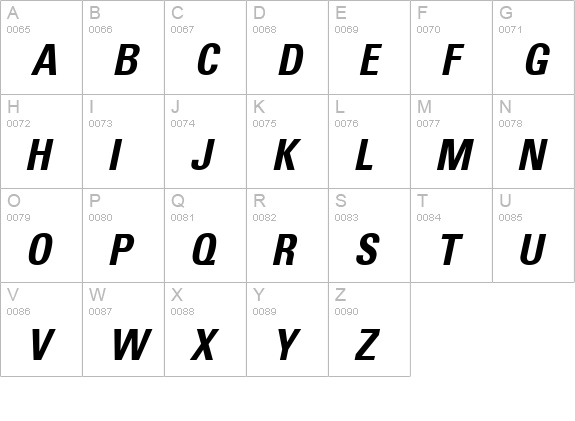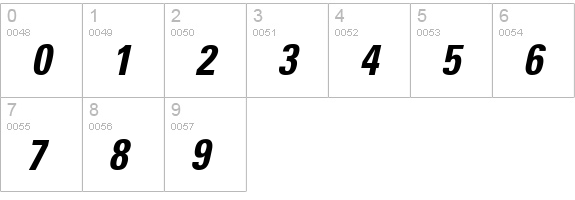
Uniform Bold Italic is a strong, high-contrast, italic variant in the Uniform typeface family \xE2\x80\x94 well suited to headlines, attention-grabbing titles, and strong calls-to-action.
Uniform Bold Italic is a striking and impactful font that demands attention with its bold and italicized design. This font exudes confidence and power, making it the perfect choice for projects that require a strong and dynamic visual presence. The bold and italic combination of this font adds a touch of sophistication and elegance, making it suitable for a wide range of design purposes. Whether you are creating eye-catching headlines, stylish logos, or elegant invitations, Uniform Bold Italic is sure to leave a lasting impression. The clean and crisp lines of this font offer excellent readability, ensuring that your message is conveyed with clarity and professionalism. Its well-defined characters and distinctive curves make each letter stand out, making it easy for readers to engage with your content. One of the best features of Uniform Bold Italic is that it is freely available to download at FontsMarket.com. This means that you can access this font without any cost and use it for both personal and commercial projects. FontsMarket.com is a trusted source for high-quality fonts, and with just a few clicks, you can have Uniform Bold Italic ready to enhance your designs. Whether you are a graphic designer, a web developer, or simply someone who appreciates beautiful typography, Uniform Bold Italic is a must-have font in your collection. Its versatility and boldness make it an excellent choice for various creative projects, and its free availability at FontsMarket.com makes it even more accessible to anyone in need of a visually striking and impactful font.